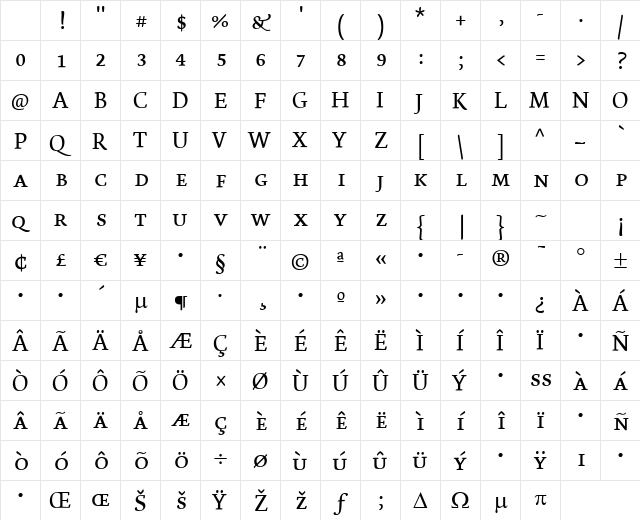
Complete Dolly SmallCaps Regular glyph index. Displaying only characters natively supported by Dolly SmallCaps Regular font.
Dolly SmallCaps is a composed and adaptable typeface that performs quietly and consistently across a wide range of design contexts.